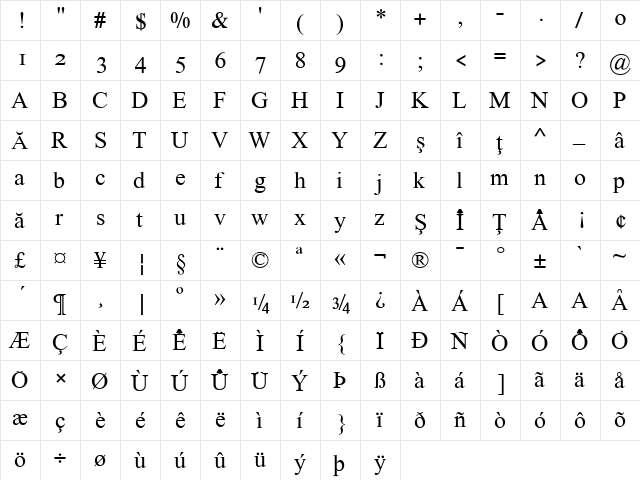
ILPRumanianB100 Regular Font Preview
ILPRumanianB100 Regular
Design Context for ILPRumanianB100 Typeface
ILPRumanianB100 takes a measured approach to typography — its balanced proportions and neutral character make it a reliable workhorse for both digital and print work.